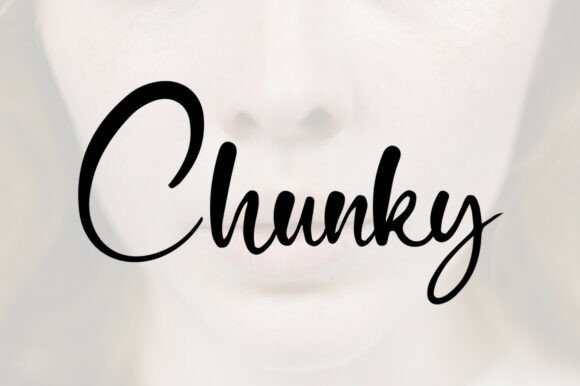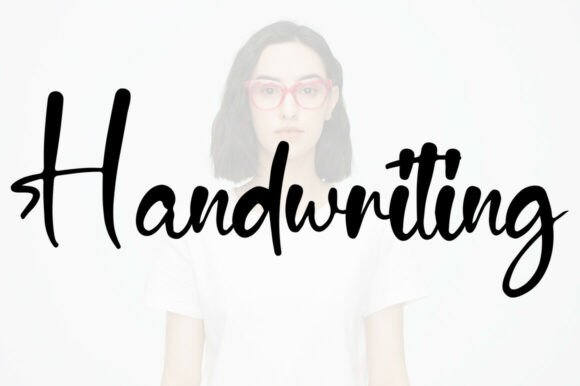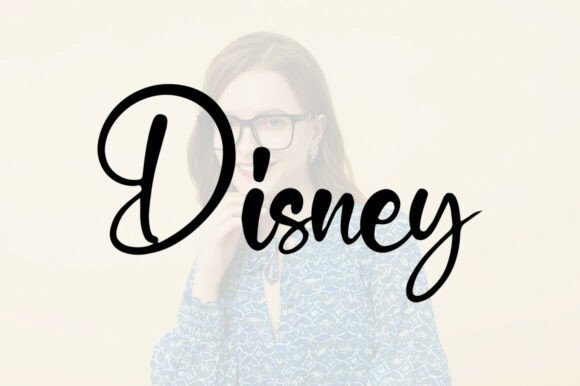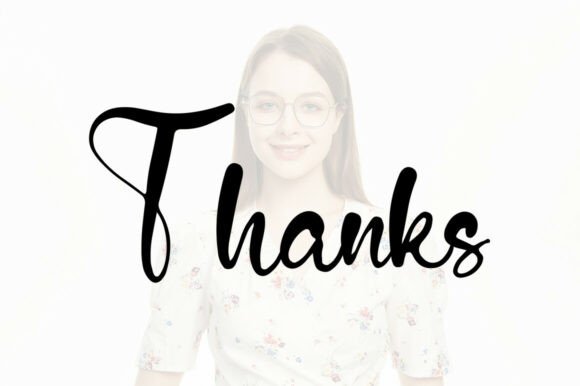
Introducing Hangouth Font: Elevate Your Designs with Elegance
In the world of typography, a font can make or break a design. For designers and crafters seeking to add a touch of sophistication and whimsy to their projects, Hangouth Font is an exceptional choice. This delicate, elegant, and flowing handwritten font is designed to bring a sense of refinement and poise to a wide range of designs.
The Beauty of Hangouth Font
Hangouth Font boasts beautiful and well-balanced characters that are meticulously crafted to perfection. Its elegant and flowing strokes create a sense of movement and fluidity, making it perfect for designs that require a touch of dynamism. The font’s delicate nature ensures that it remains legible even at smaller sizes, making it versatile for use in various applications.
One of the standout features of Hangouth Font is its incredible versatility. Its classic and timeless design makes it suitable for a wide pool of designs, from wedding invitations and branding materials to packaging and digital media. Whether you’re working on a modern and minimalist project or a traditional and ornate one, Hangouth Font seamlessly adapts to complement your design aesthetic.
Hangouth Font is a dream come true for designers and crafters who strive to create visually stunning and cohesive designs. Its unique and elegant style allows designers to:
- Create beautiful and eye-catching titles and headings
- Add a personal touch to their designs with handwritten-style text
- Develop cohesive brand identities with a distinctive typographic voice
- Enhance their digital and print materials with a sophisticated aesthetic
Tips for Using Hangouth Font Effectively
To get the most out of Hangouth Font, consider the following tips:
- Pair Hangouth Font with a clean and simple sans-serif font for optimal contrast and readability
- Experiment with font sizes and colors to create visual hierarchy and emphasis
- Use Hangouth Font for titles, headings, and quotes to add a touch of elegance
- Don’t be afraid to get creative and add your own personal touches with flourishes and swashes
Why Choose Hangouth Font?
With so many fonts available, why choose Hangouth Font? Here are just a few reasons:
- Unique and distinctive design that sets your designs apart
- Exceptional legibility and readability
- Versatile and adaptable to various design styles and applications
- Elegant and sophisticated aesthetic that elevates your designs
Hangouth Font is an exceptional addition to any designer’s or crafter’s toolkit. Its delicate, elegant, and flowing handwritten style makes it perfect for a wide range of designs, from modern and minimalist to traditional and ornate. With its versatility, legibility, and sophisticated aesthetic, Hangouth Font is sure to elevate your designs and leave a lasting impression.